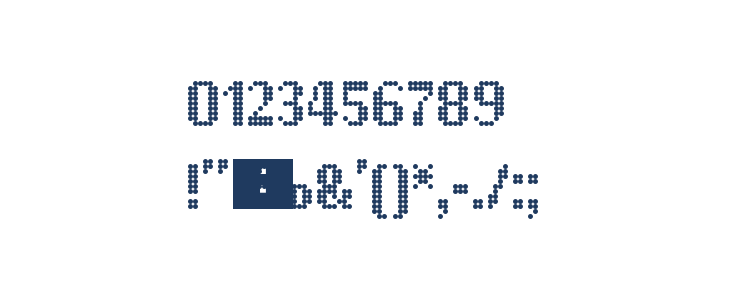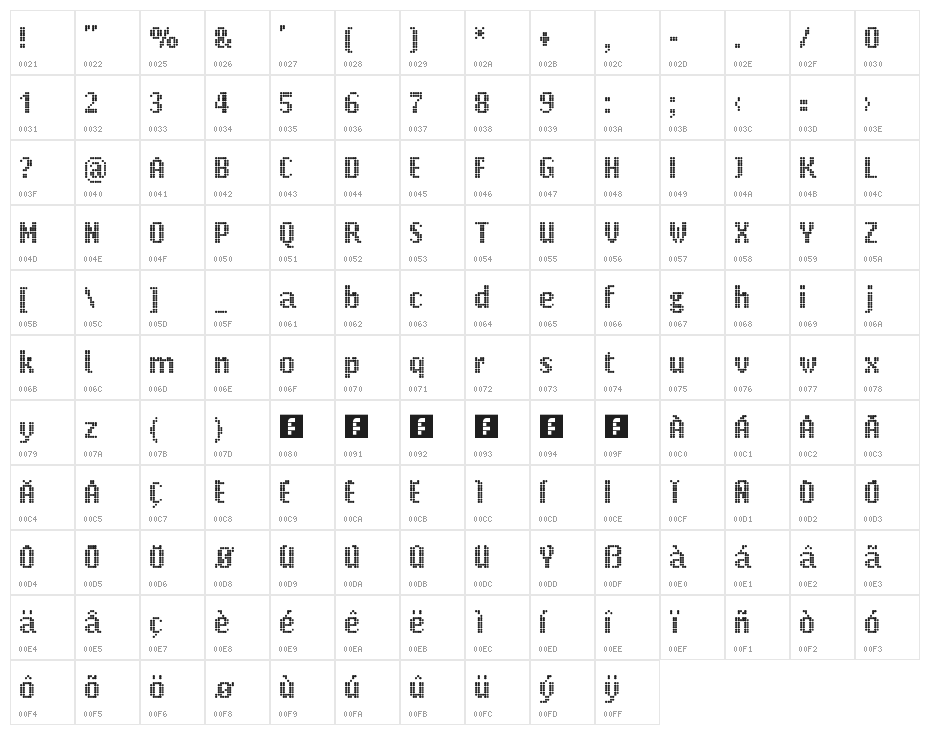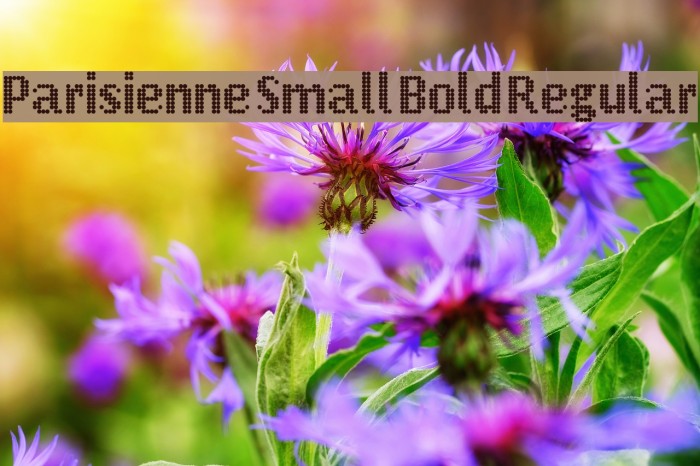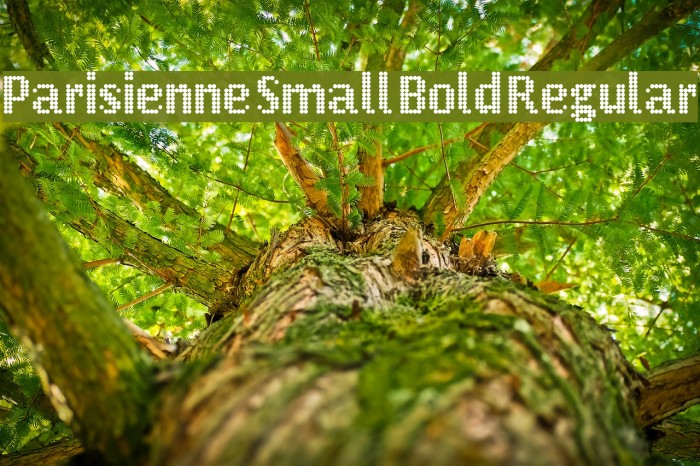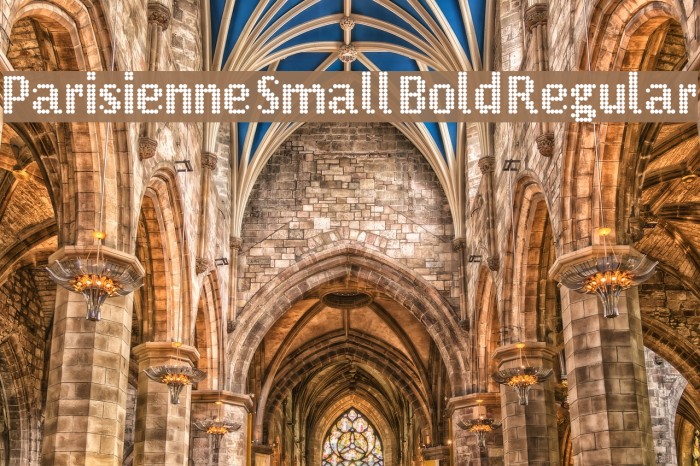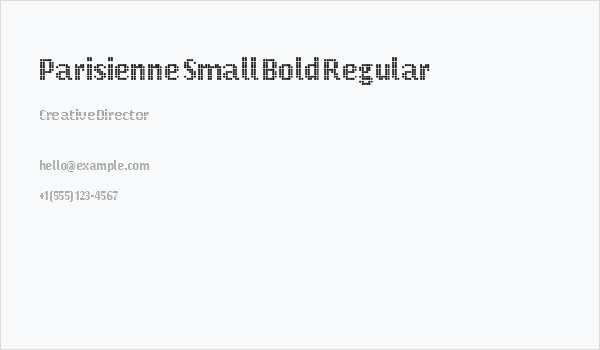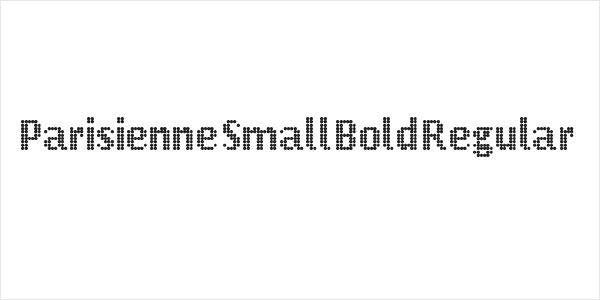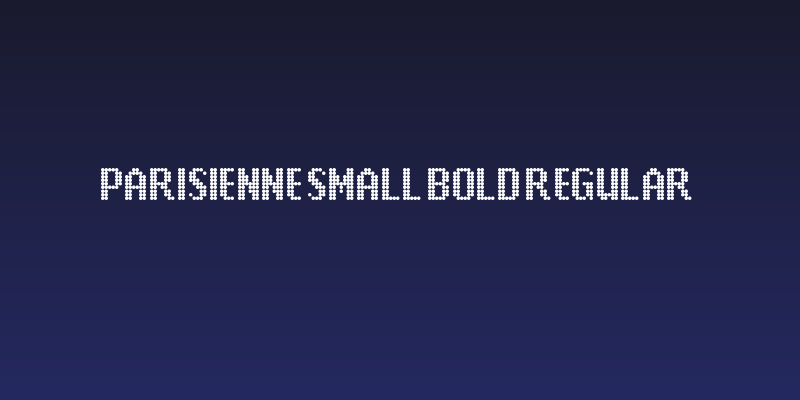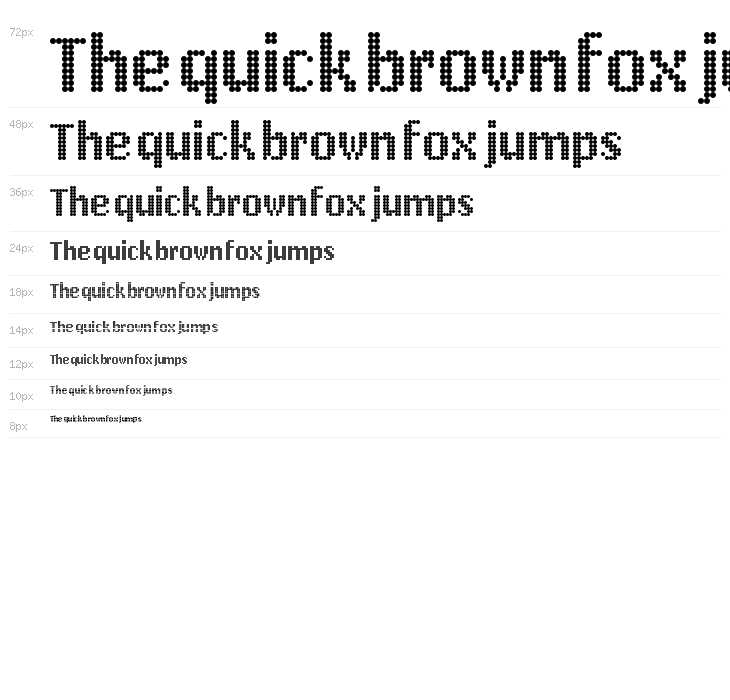
Parisienne Small Bold Regular Font
Parisienne Small Bold Regular Description
This font features a unique design where each character is composed of a series of dots, creating a digital or pixelated effect. The uppercase and lowercase letters, as well as numbers and special characters, maintain a consistent dot pattern that gives the font a cohesive look. The rounded dots provide a soft, approachable feel despite the geometric construction. This style is reminiscent of old-school LED displays or dot matrix printers, offering a retro yet modern aesthetic. The spacing between characters is uniform, ensuring readability while maintaining the distinct dotted style.
| Overall Style | Retro, Modern |
| Use Case | Headlines, Logos, Digital displays |
| Proposed Projects | Ideal for digital displays, retro-themed designs, tech-related branding, or any project seeking a vintage digital look. |